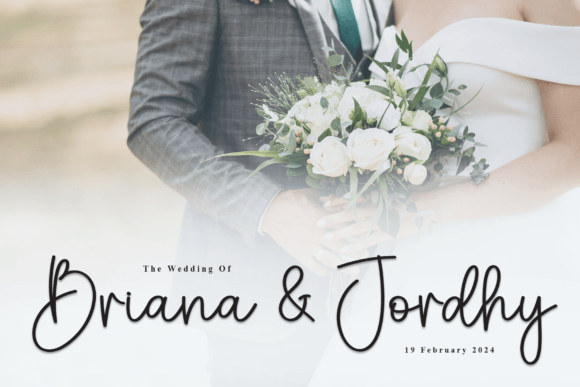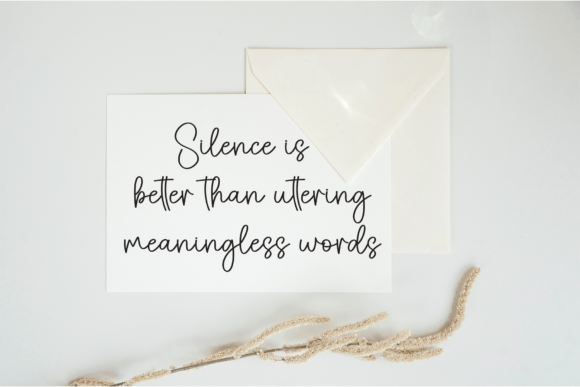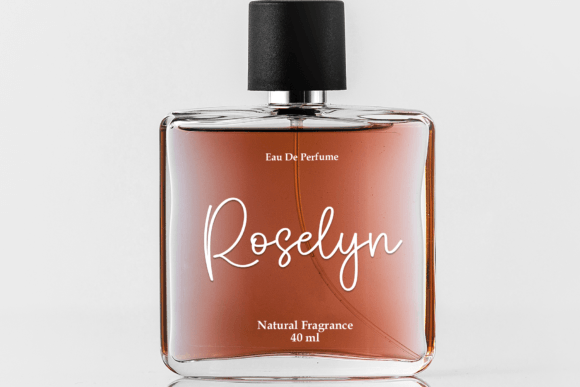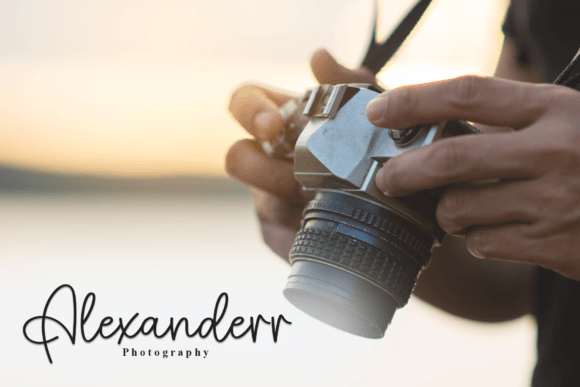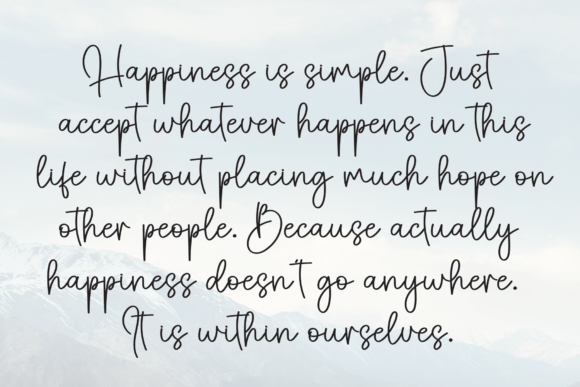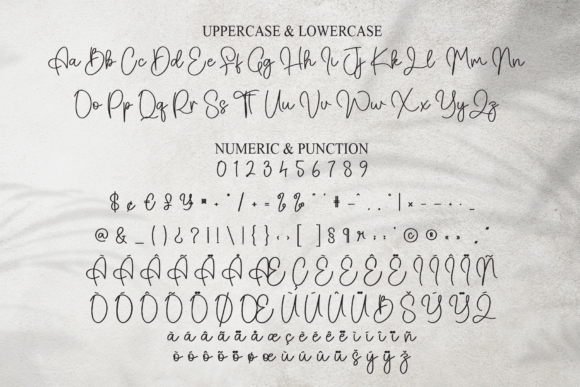
Adding a Touch of Elegance with the Belinda Signature Font
You’ve spent hours perfecting your design, from the color palette to the typography, but something’s still missing. That’s when you stumble upon the perfect finishing touch – a luxurious handwritten font that adds an air of sophistication to your work. For designers, finding that elusive font can make all the difference between a good design and a great one.
Enter the Belinda Signature Font, a stylish and elegant script font that brings a sense of refinement to any project. With its smooth curves and stylish strokes, this font is perfect for invitations, branding, or any design that needs a touch of class. Whether you’re creating a wedding invitation or a luxury brochure, the Belinda Signature Font is sure to elevate your design to the next level.
Belinda Signature Font Key Features
- Font Style: A beautiful, elegant script font designed for signature use.
- Unique Characteristics: Includes ligatures and swashes to add a personal touch to signatures, as well as a set of initial caps and flourishes for added flair.
Belinda Signature Font Review
As a designer, I’m always on the lookout for fonts that make a statement. The Belinda Signature Font is one such font that caught my eye. Here’s my honest review.
- The Belinda Signature Font has a unique, elegant design that’s perfect for formal documents and presentations.
- The font is highly customizable, with a wide range of options for colors, sizes, and styles.
- The font is also highly legible, making it easy to read even in smaller sizes.
- The Belinda Signature Font may not be the best choice for informal or casual projects, as it may come across as too formal.
- The font may not be as versatile as some other fonts on the market, and may not work well with certain design styles.
Overall, I think the Belinda Signature Font is a great choice for designers who need a font that makes a statement. While it may have some limitations, the font’s unique design and high level of customization make it a valuable addition to any design arsenal. I would definitely recommend it to designers who are looking for a high-end font for their projects.
The Belinda Signature Font is ideal for:
- Creating professional business cards and letterheads.
- Designing elegant invitations and event materials.
- Adding a touch of sophistication to digital and print publications.
With the Belinda Signature Font, you can create a consistent and recognizable brand identity across all your marketing materials.